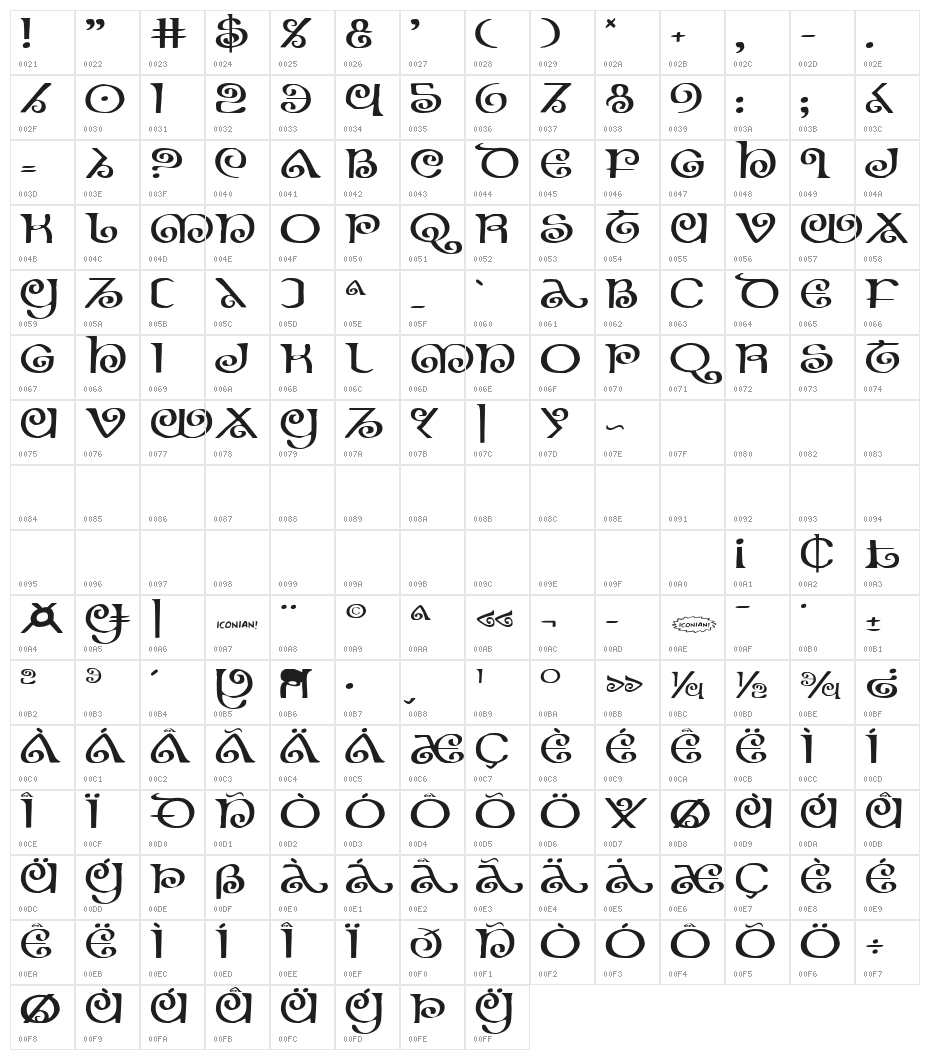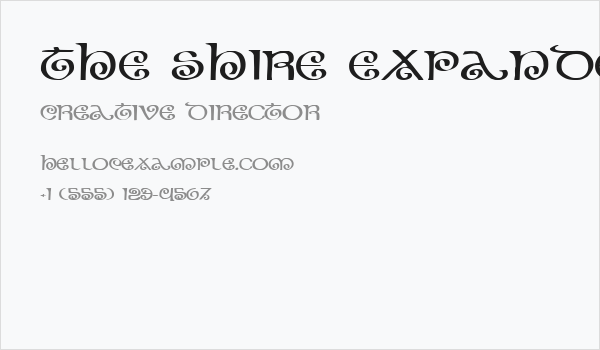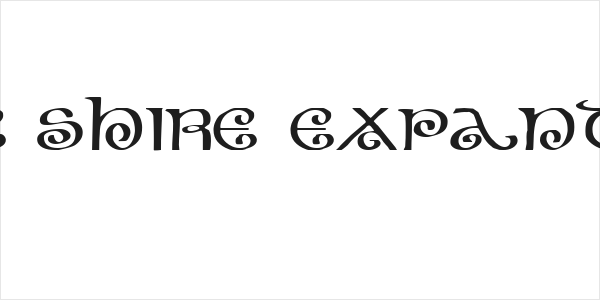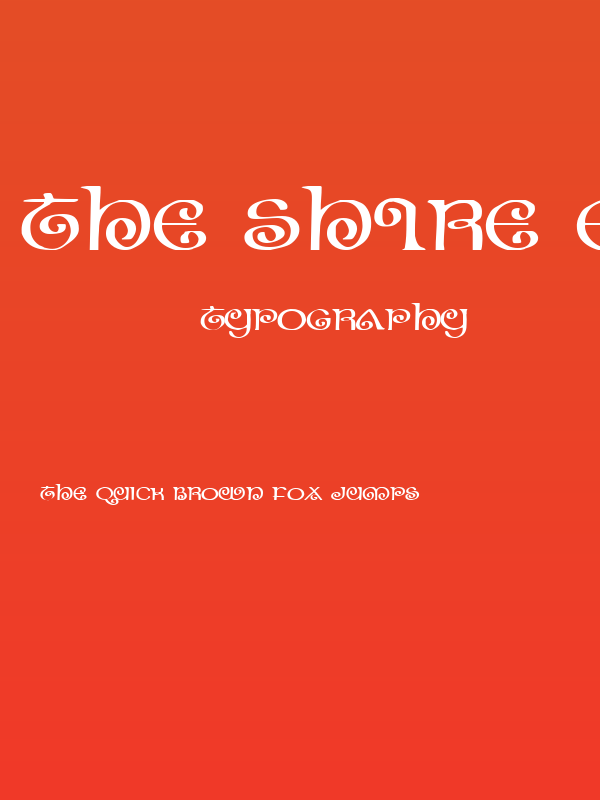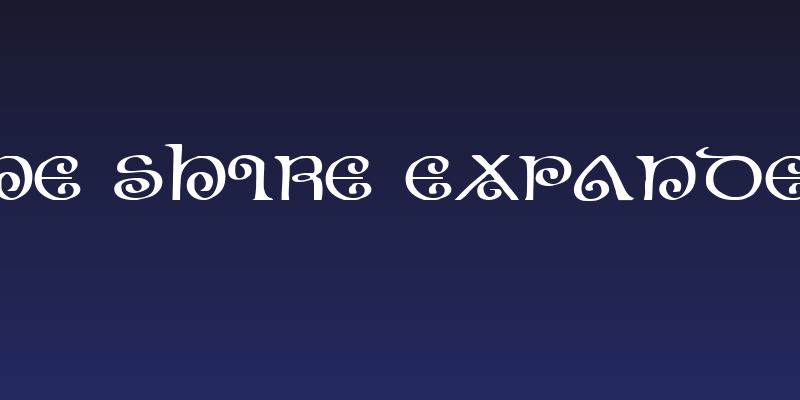
The Shire Expanded Font
The Shire Expanded Description
This font features a whimsical and decorative style, characterized by its intricate swirls and curls that give it a fantasy-like appearance. The characters are bold and have a unique flair, with each letter incorporating elaborate loops and curves. The font maintains a consistent thickness throughout, providing a balanced and cohesive look. Its playful and ornate design makes it suitable for creative and imaginative projects. The numbers and special characters follow the same decorative theme, ensuring uniformity across all elements. This font is perfect for capturing attention and adding a touch of magic to any design.
Proposed ProjectsIdeal for fantasy-themed projects, book covers, posters, and creative branding.